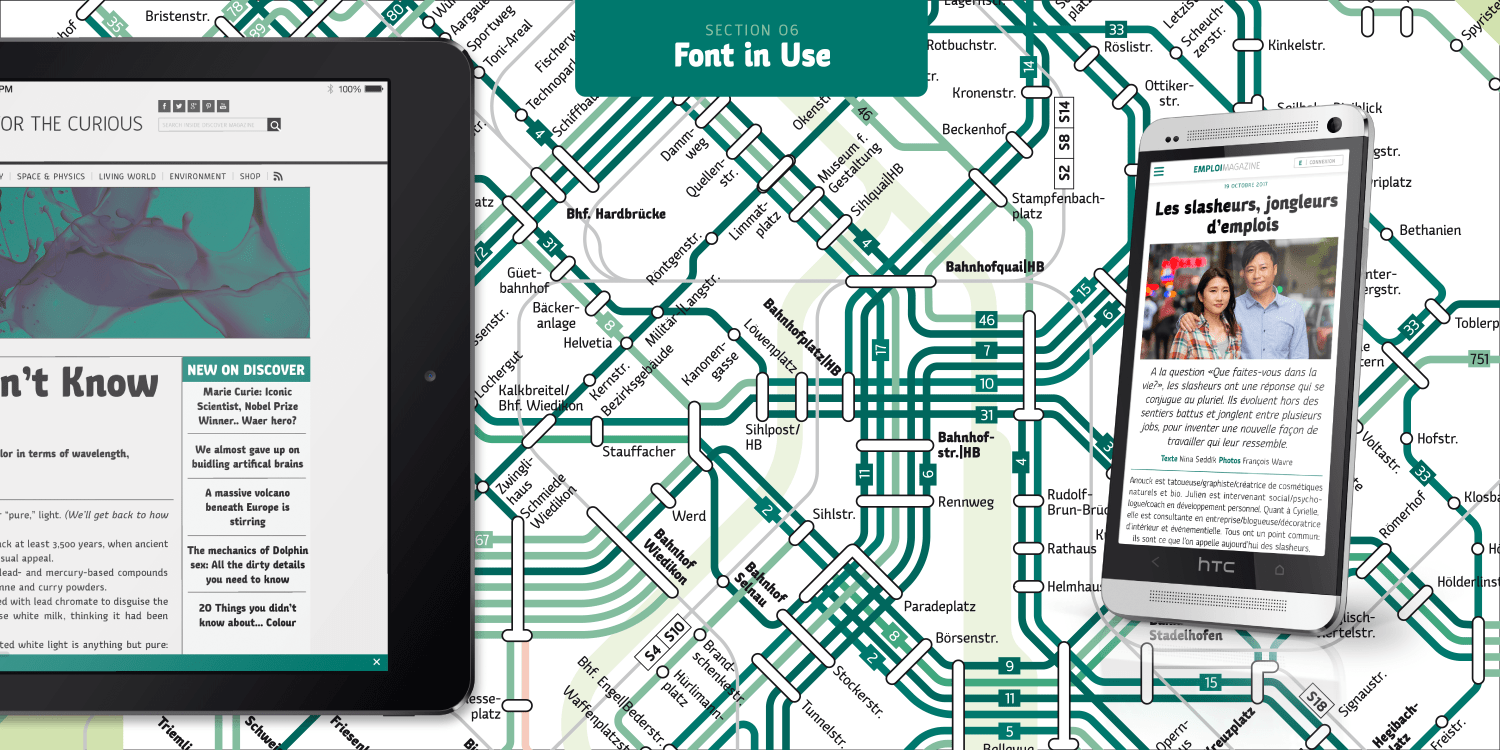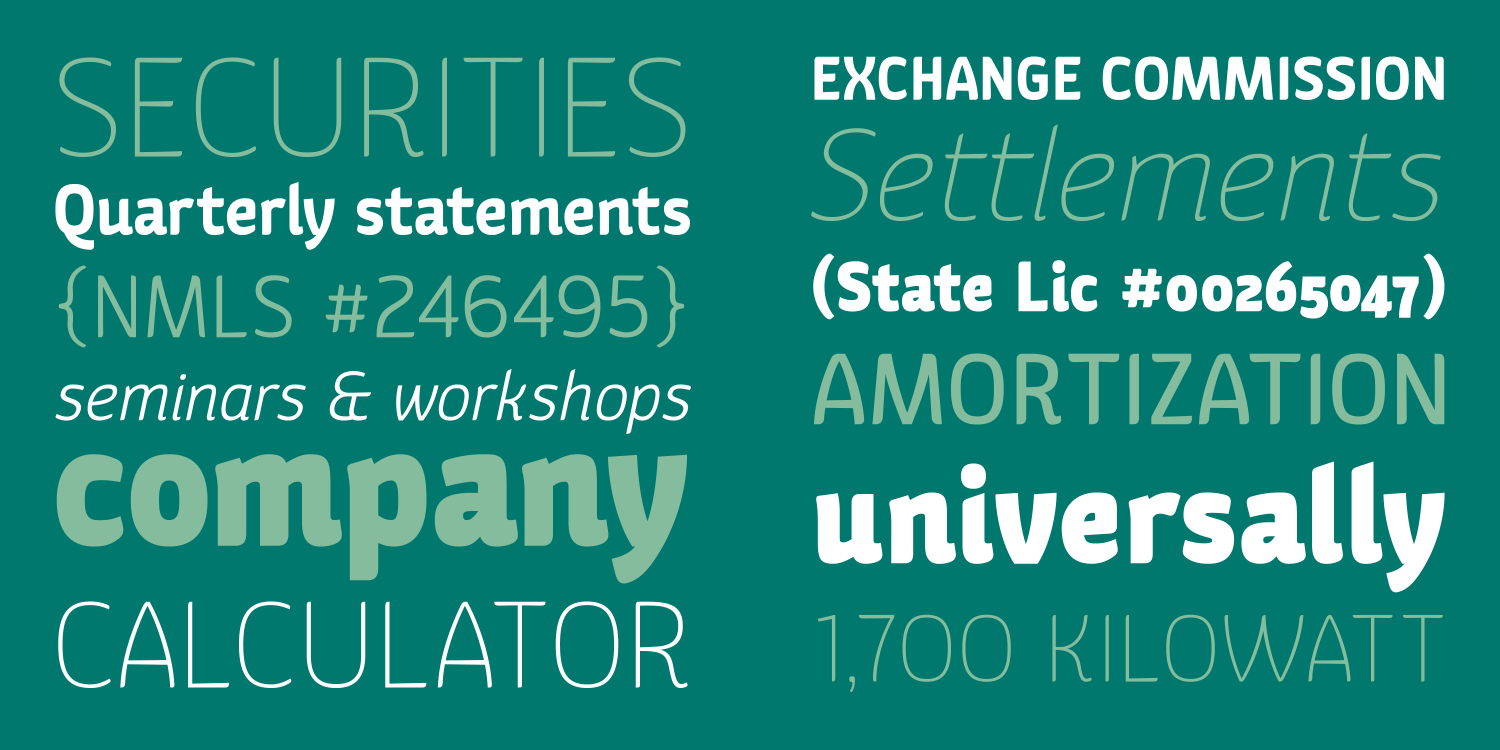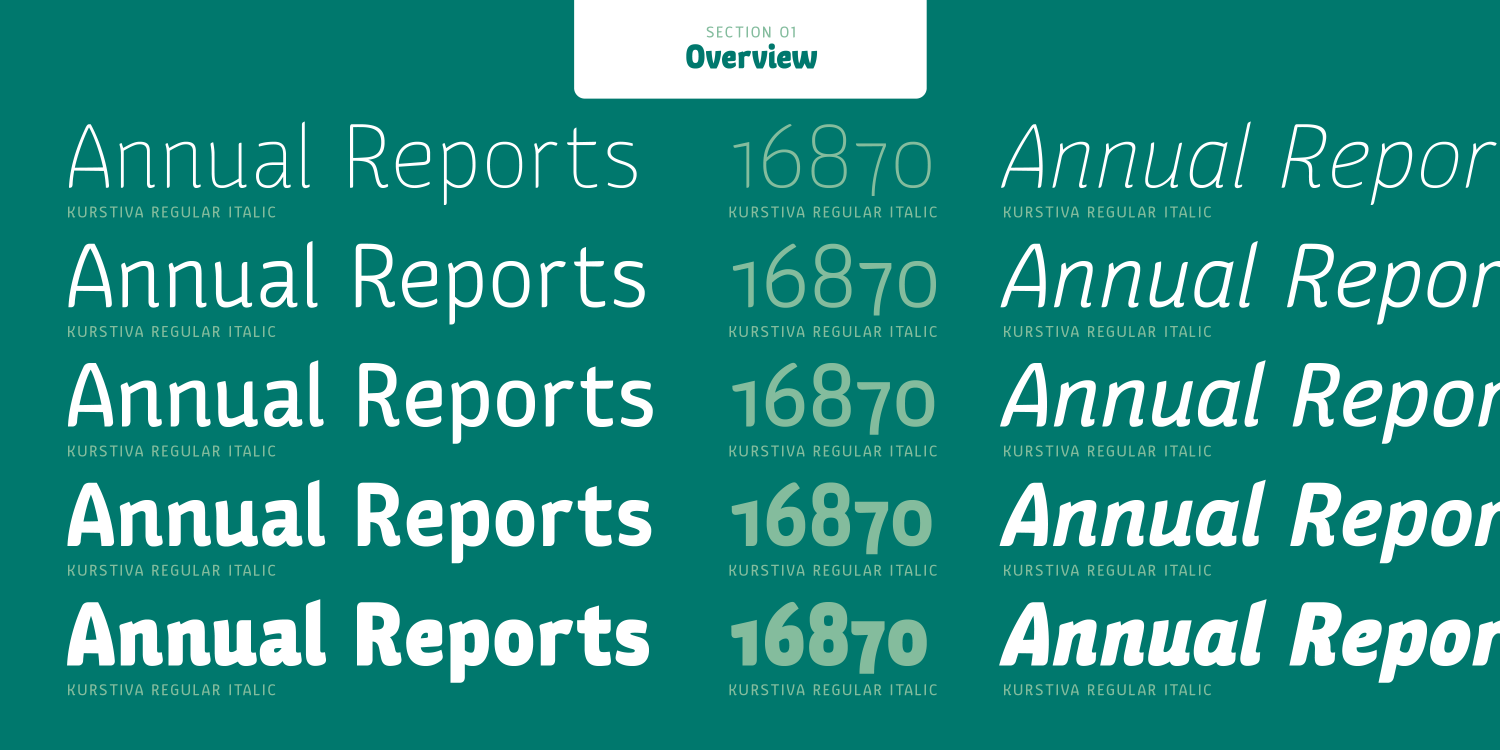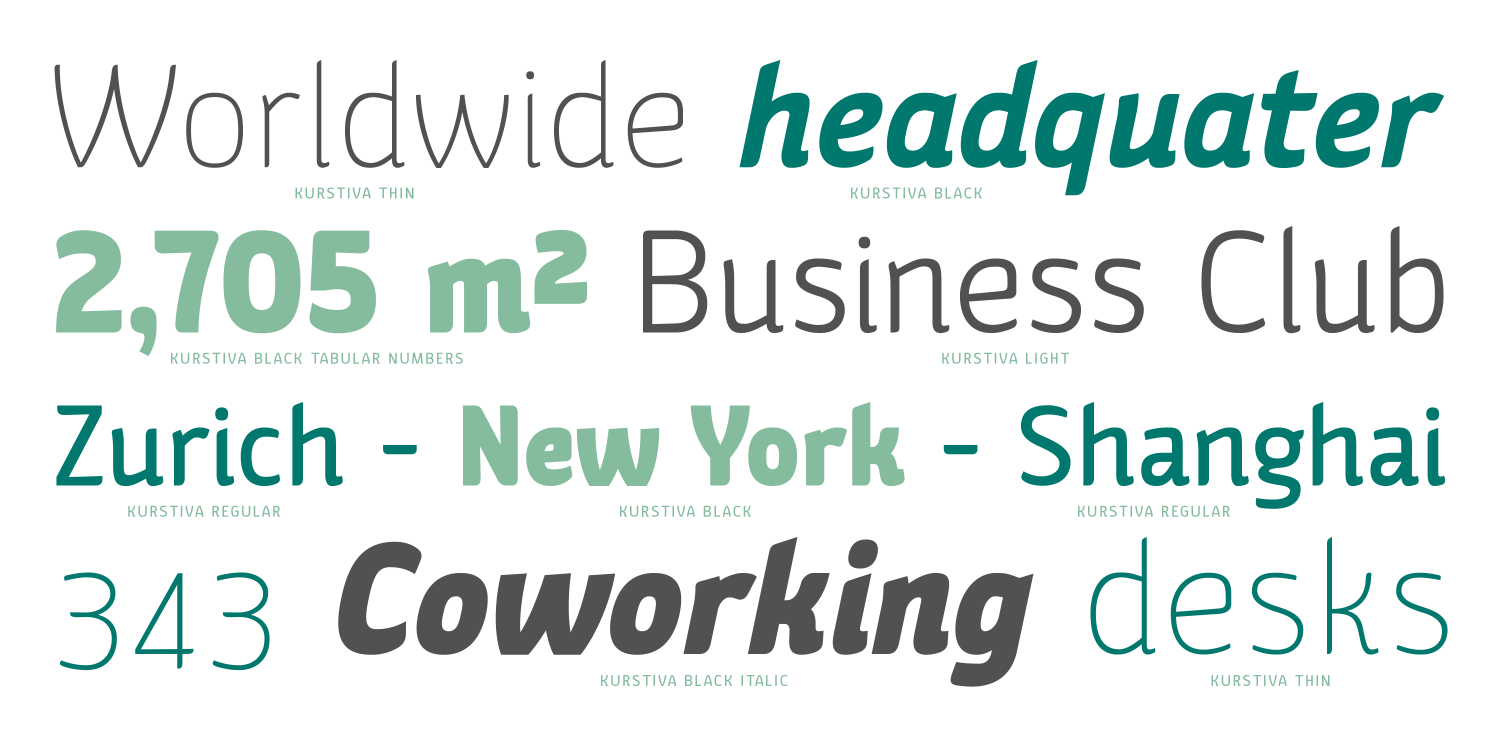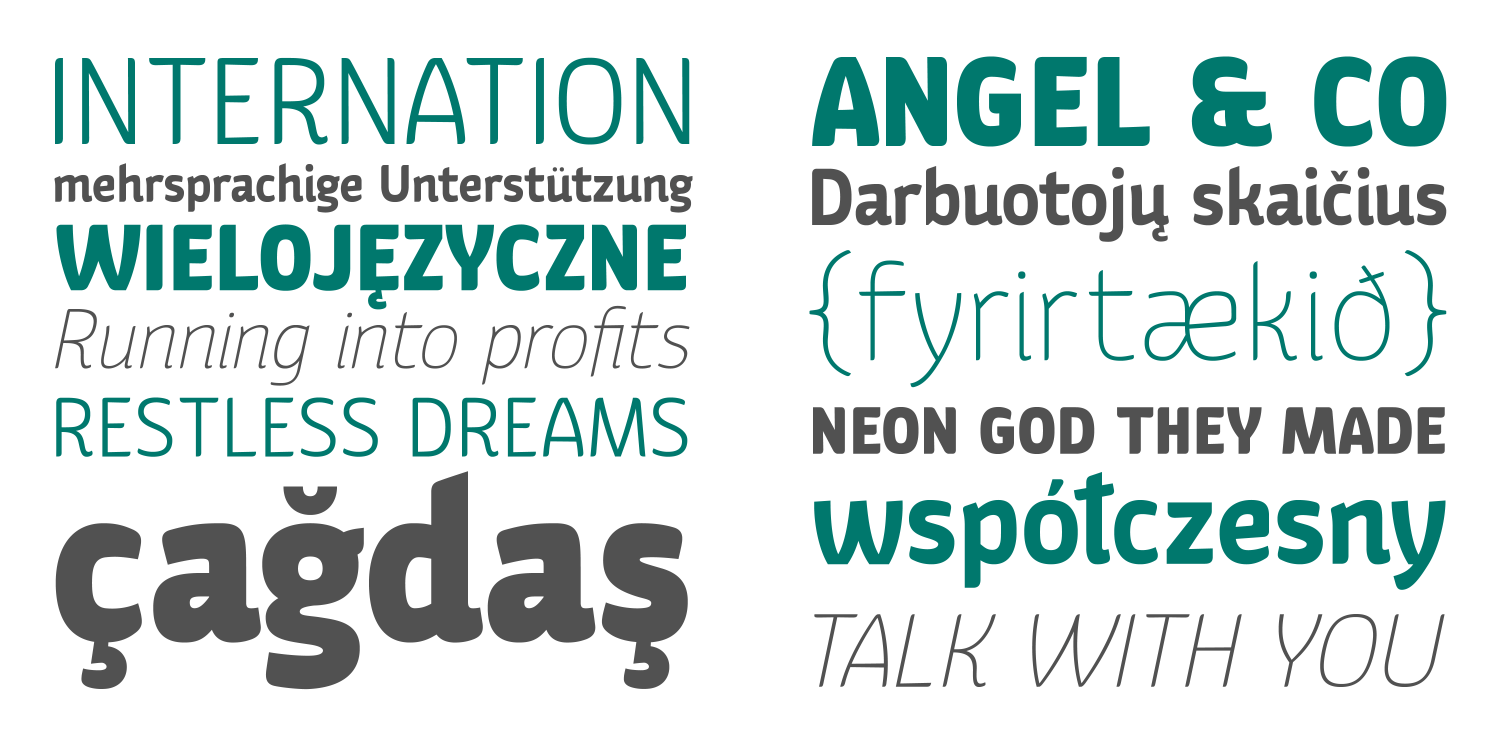
Kurstiva
About Kurstiva
Kurstiva is a narrow, sans serif typeface family available in ten weights ranging from a hairline, thin weight to a dark, black style. Conceived as a contemporary text face, this typeface aims to convey a strong personality while remaining very legible.…